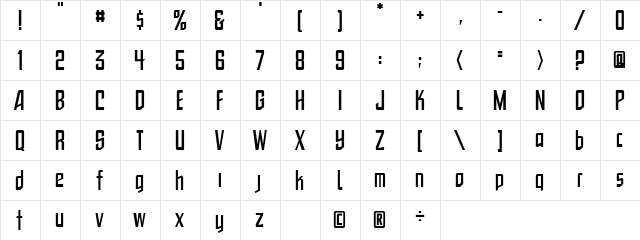
CCToBeContinued Medium
Design Context for CCToBeContinued Typeface
CCToBeContinued offers clean, dependable letterforms without strong stylistic allegiance, making it a practical choice for designers who need flexibility.